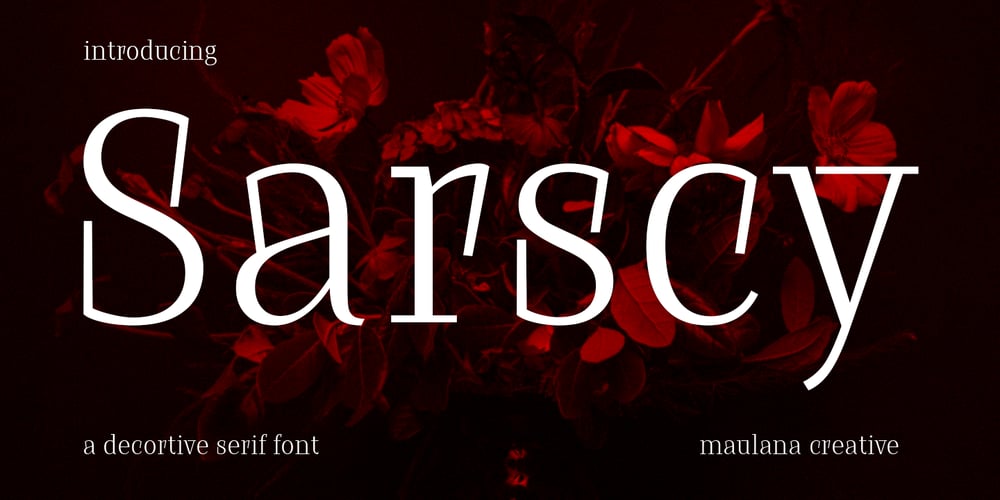
MC Sarscy
MC Sarscy font
MC Sarscy Font Family was designed by Gilang Maulana and published by Maulana Creative. MC Sarscy contains 1 styles and family package options. Sarscy is a decorative serif font. Regular stroke, fun character with a bit of ligatures and alternates. To give you an extra creative work. Sarscy font support multilingual more than 100+ language. This font is good for logo design, Social media, Movie Titles, Books Titles, a short text even a long text letter and good for your secondary text font with script or serif. Make a stunning work with Sarscy font. Cheers, Maulana Creative